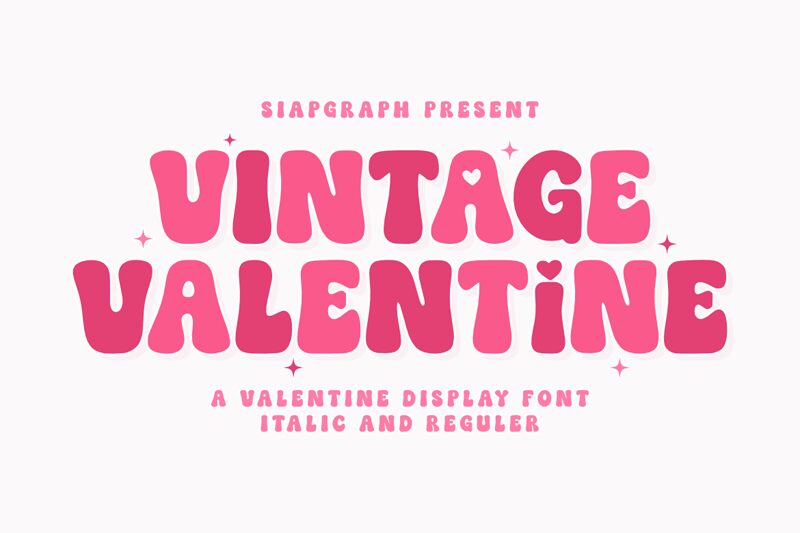
Vintage Valentine font by Siapgraph is a free groovy font combining retro inspiration with whimsical charm. The font’s soft aesthetics and decorative elements evoke a sense of emotional warmth, infusing nostalgic and joyful vibes in any design. It serves as a versatile typeface that caters not only to love-centered themes but also extends its charm to a broader set of applications demanding an approachable feel.
Ideal for Valentine’s Day themes, branding projects seeking friendliness, and designs promoting joy or nostalgia, Vintage Valentine is perfectly suited for greeting cards, playful advertisements, and retro-themed projects. The font can also enhance invitations, posters, product packaging, logos, or even websites with its unique charm.